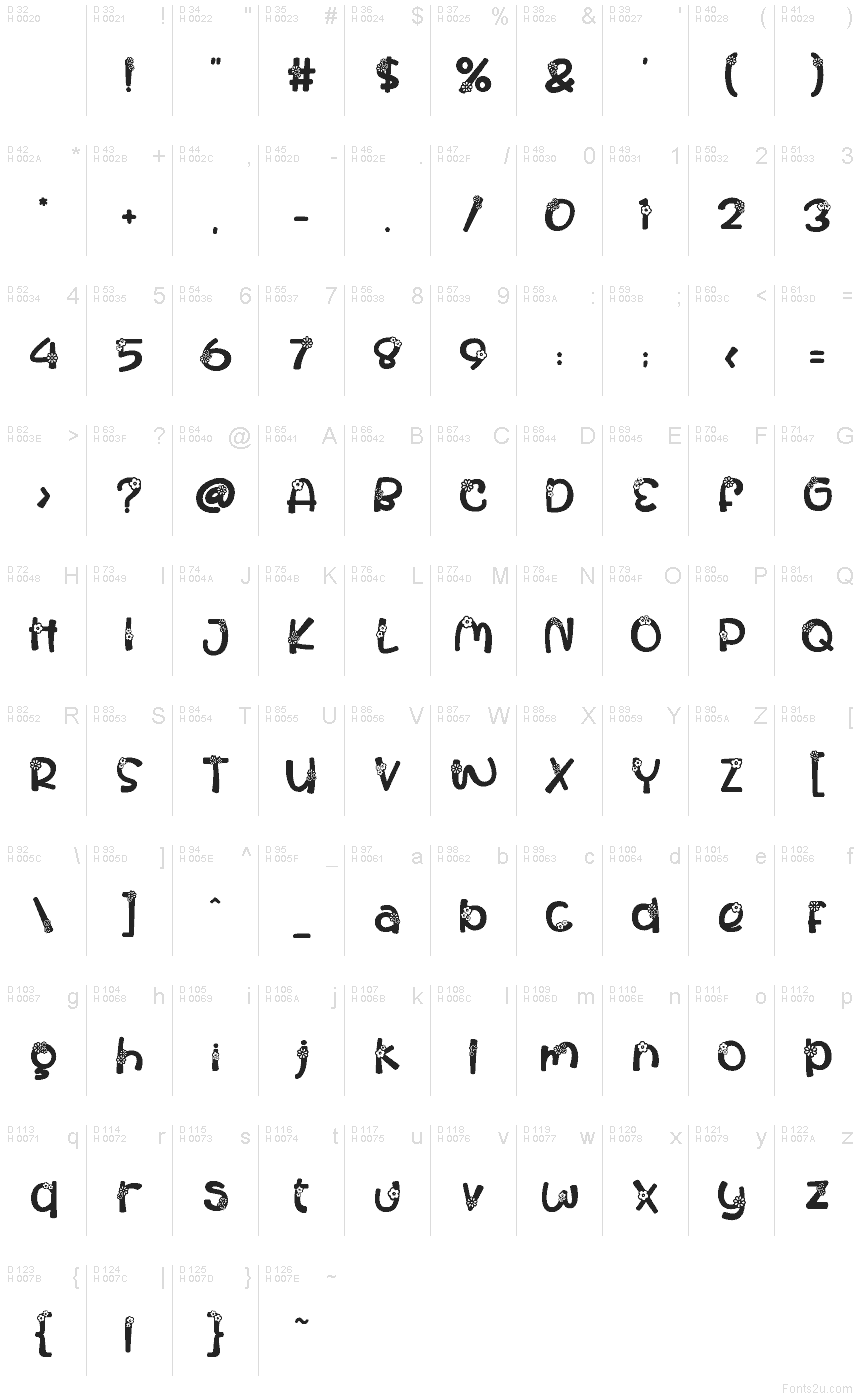
Pastel Palooza Flower
Pastel Palooza Flower font by PutraCetol Studio is a charming decorative display font designed with a festive mood in mind. Its theme and visual aesthetics easily fit Easter, Mother’s Day, or other celebratory events where we can allow ourselves to be softly eccentric. With floral embellishments and a whimsical appearance, this free font manages to express its exact style without any guesses.
Pastel Palooza Flower suggestions seem unlimited with appropriate ideas being decoration craft projects, greeting cards for the above-mentioned holidays, thematic branding requests as well as artistic store signage. Of course not every logo can work out of the box due to the borderline decorous aspect of the letters but some slight adjustments will allow creative designers to achieve amazing results along the way!